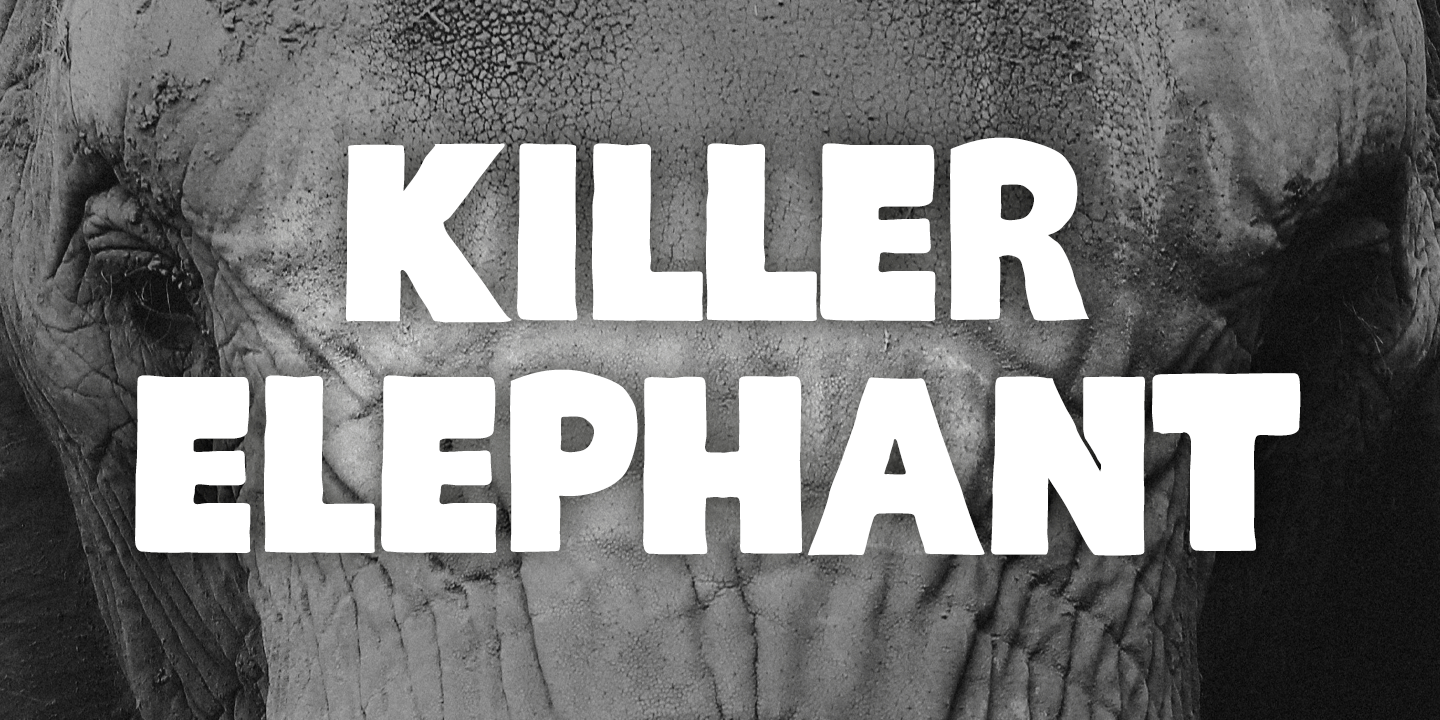
Killer Elephant
Killer Elephant is a heavy-as-hell all-caps font that'll trample all over your design. Killer Elephant is recommended to use in posters and in anything mutant, jungle or superhero related.